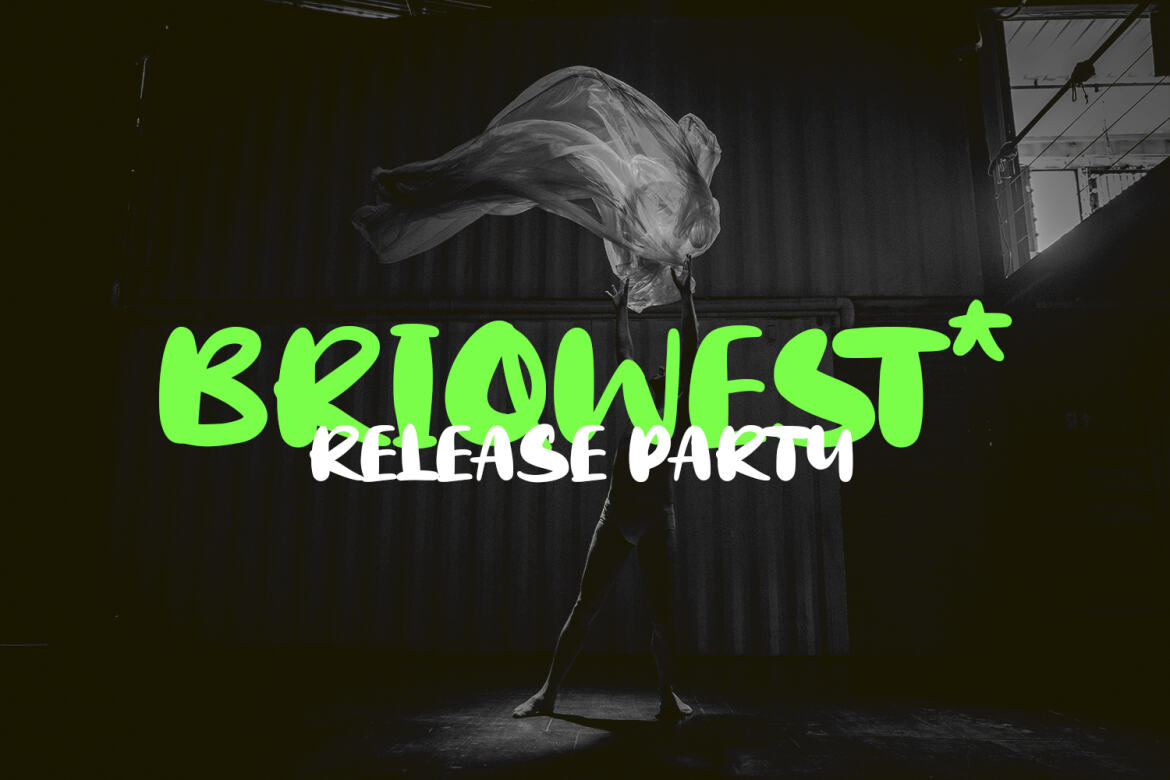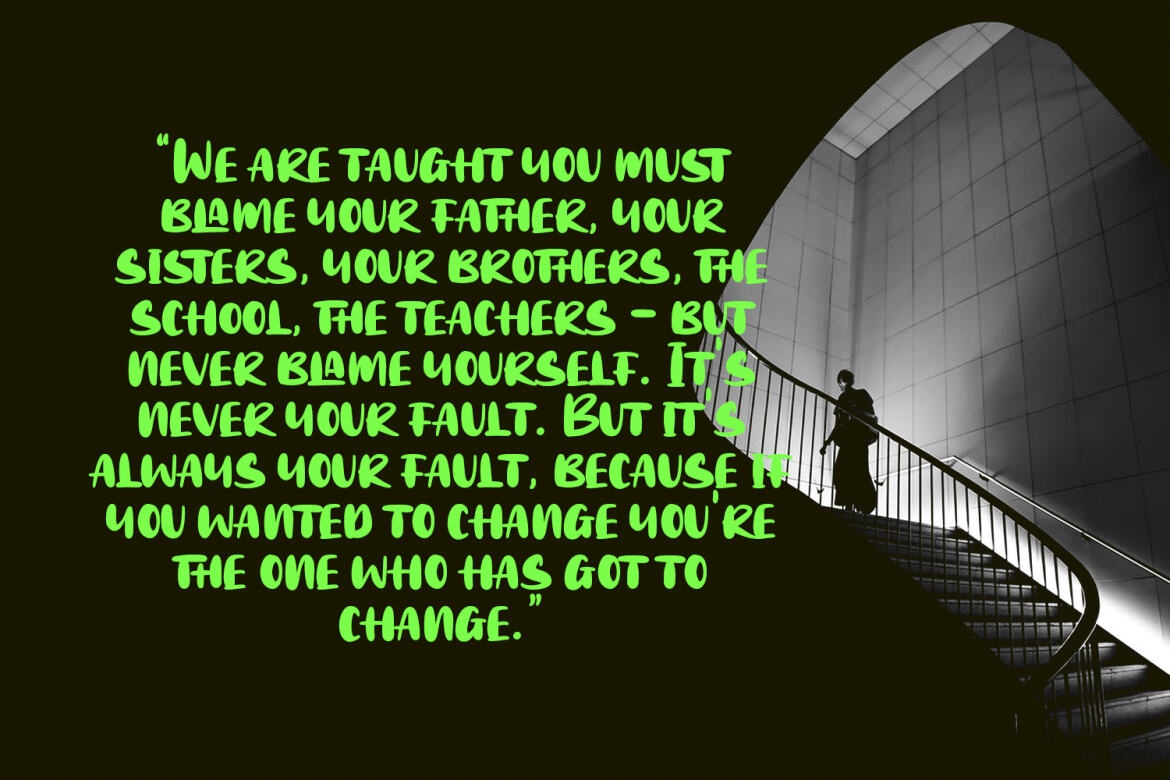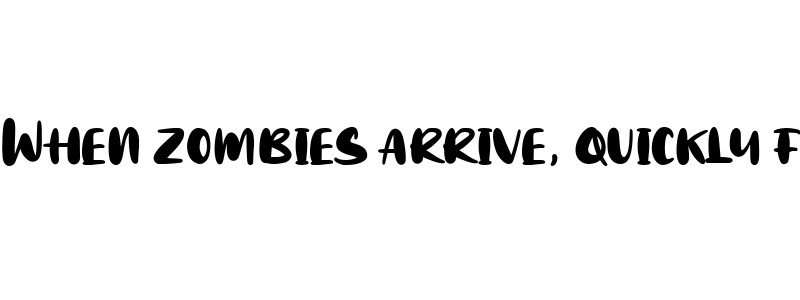
Grulaks Handwritten FREE Display Font
Grulaks
Grulaks is an unique freestyle handwritten display script font. With bold consist stroke, fun character with a bit of ligatures and alternates. To give you an extra creative work. Grulaks font support multilingual more than 100+ language. This font is good for logo design, Social media, Movie Titles, Books Titles, a short text even a long text letter and good for your secondary text font with sans or serif. Make a stunning work with Grulaks font.